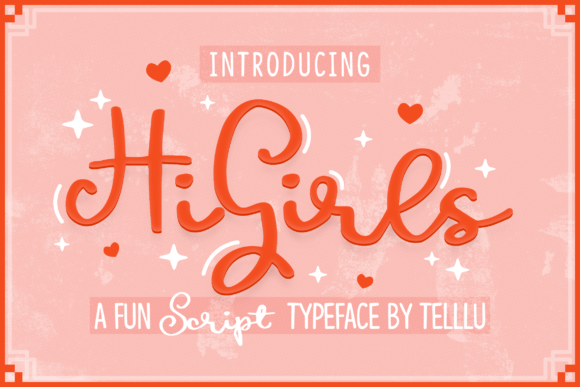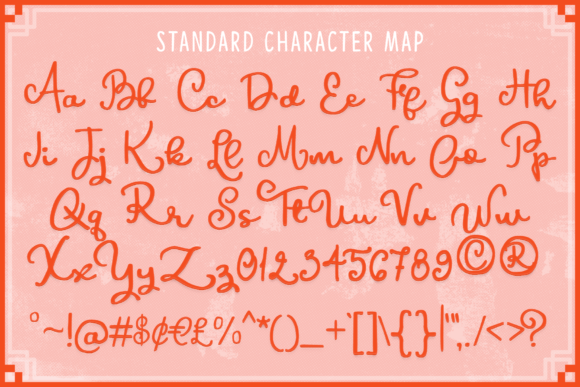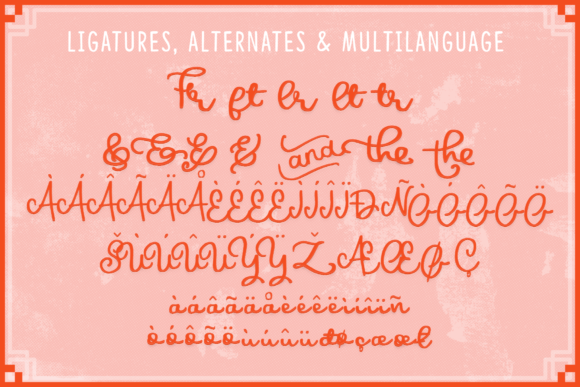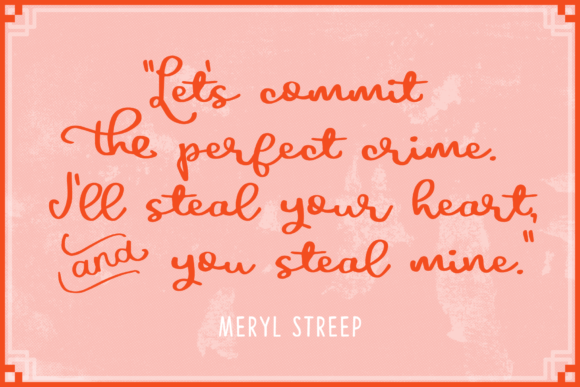
About Hi Girls Font
Hi Girls is a fun and unique script font. It will look outstanding in any context, whether itβs being used on busy backgrounds or as a standalone headline!